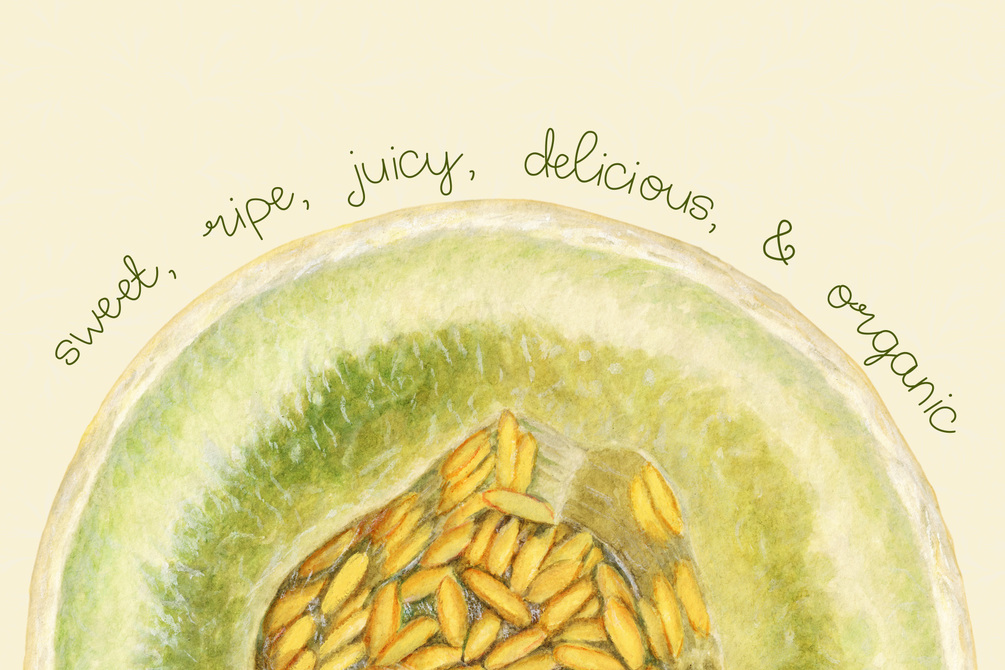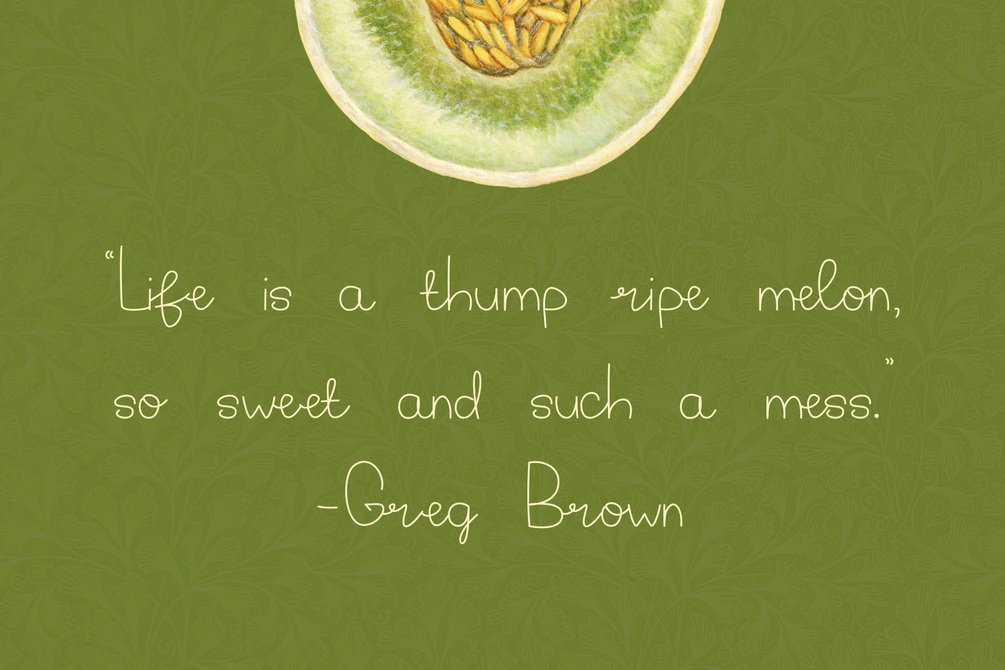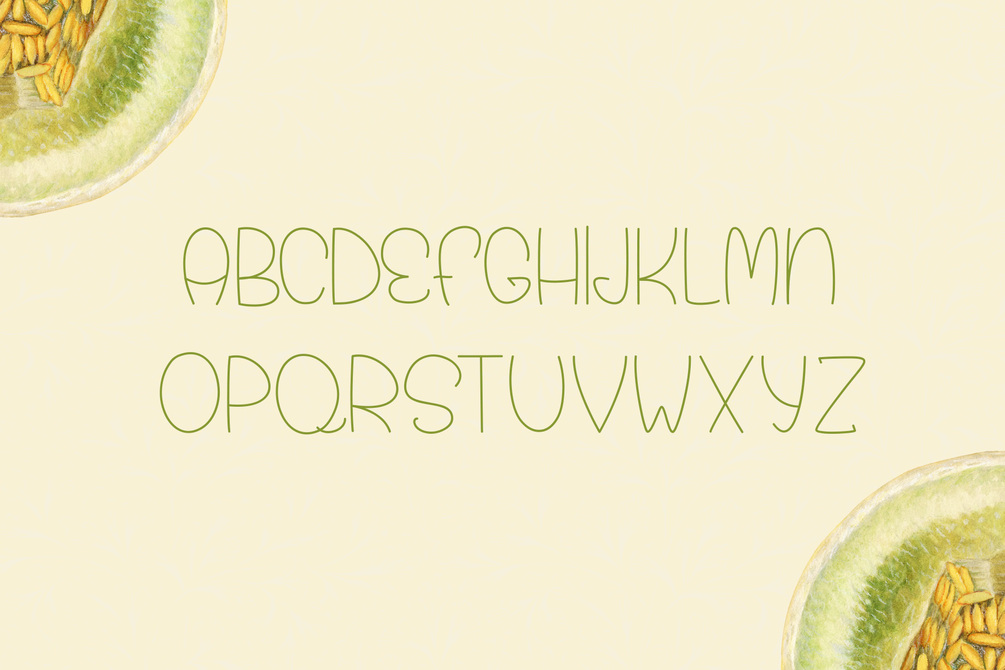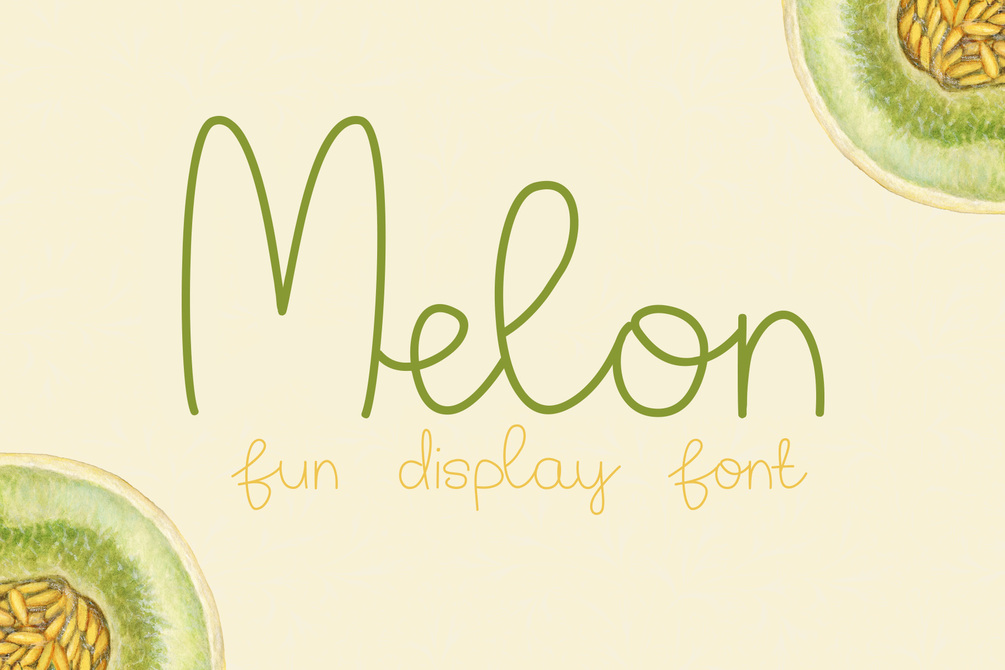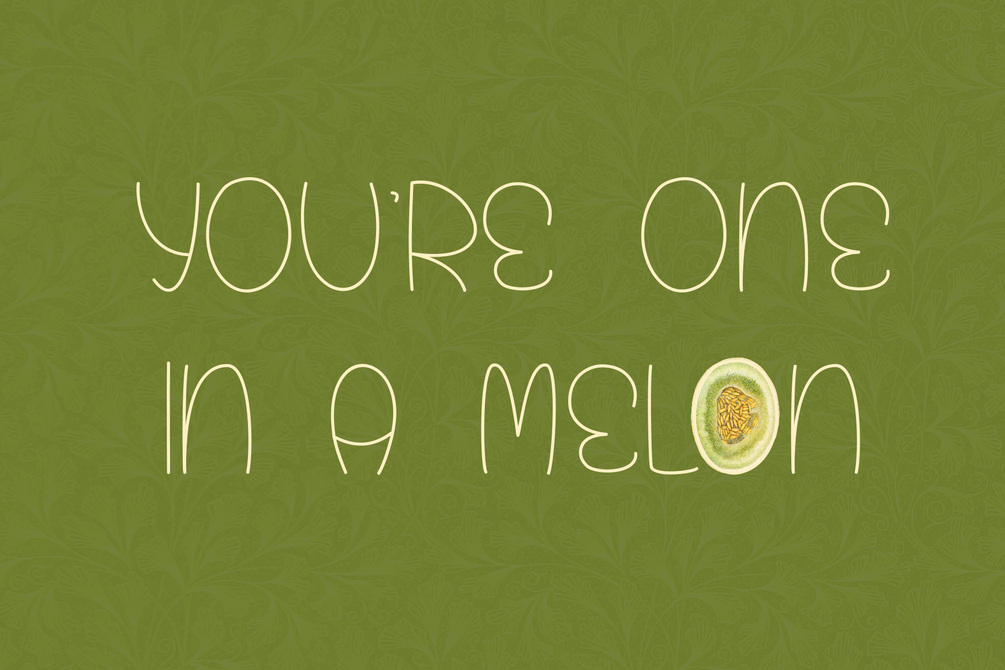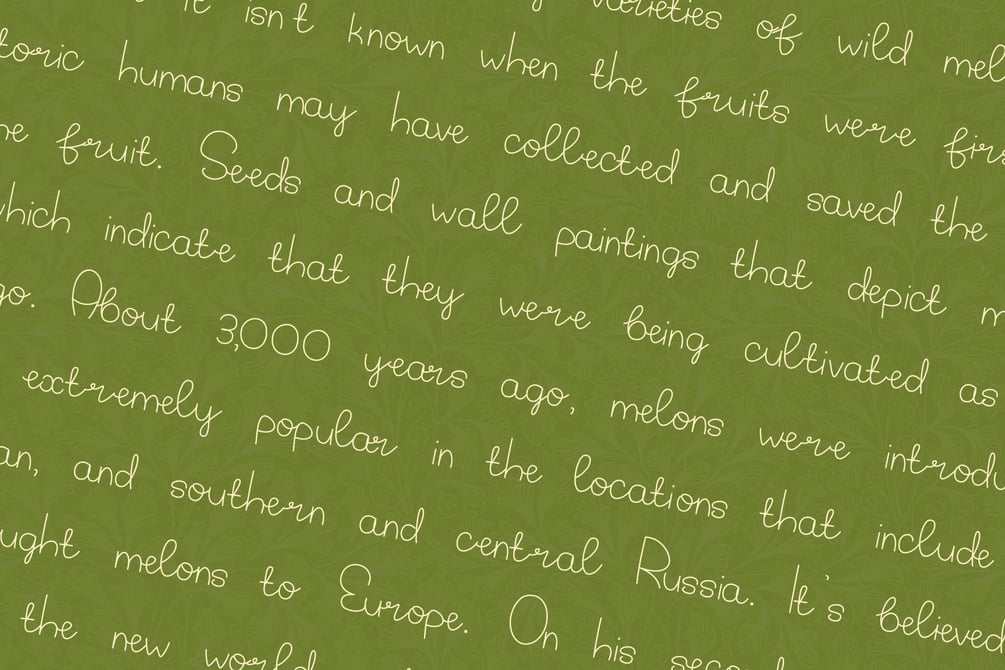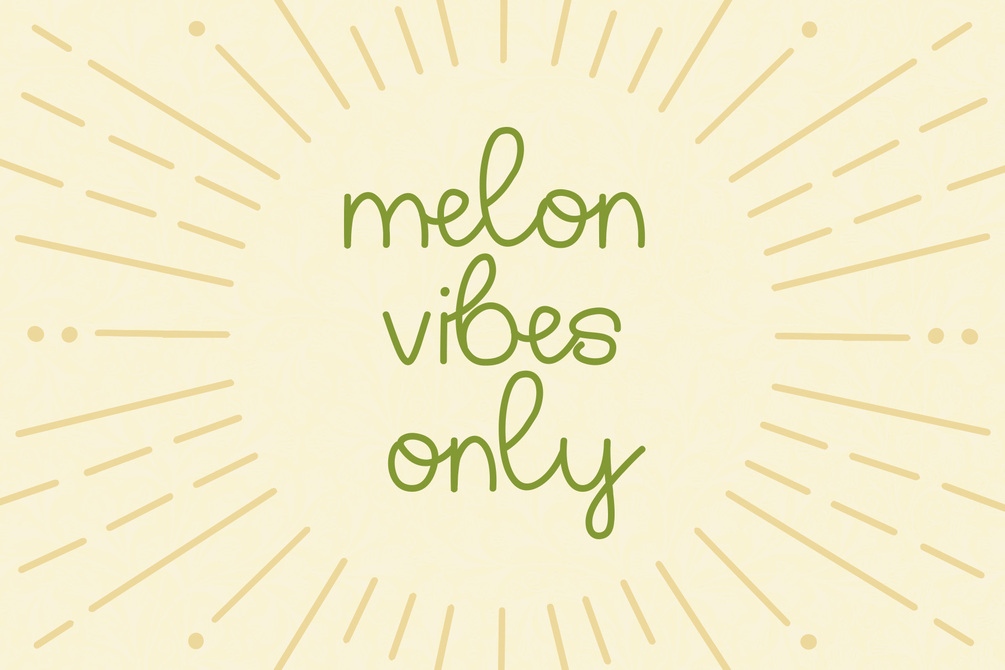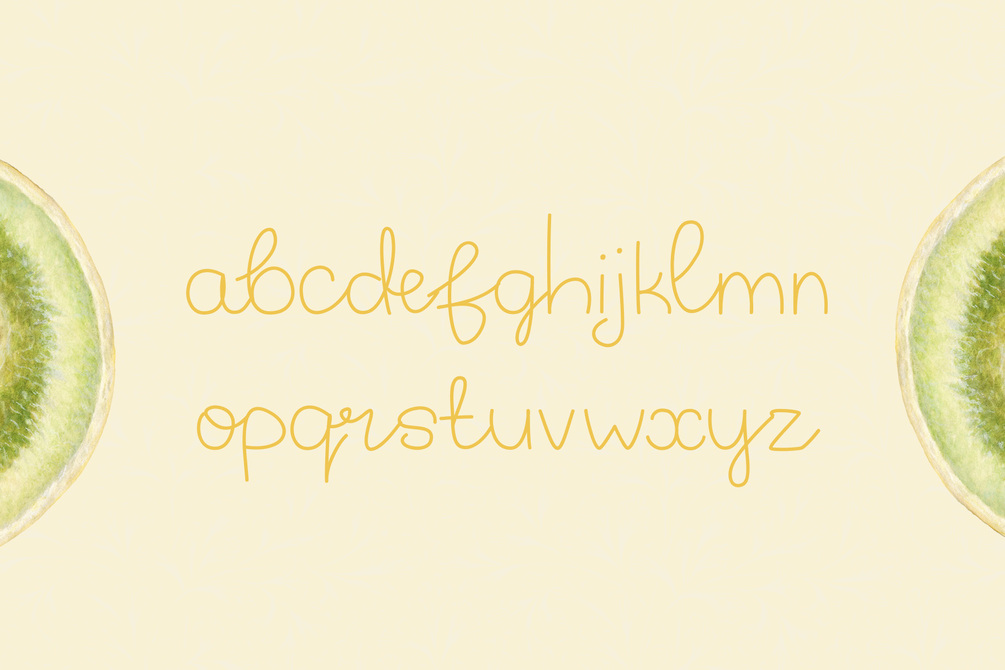
Melon - Fun Display Font
Melon is a fun and quirky display font. The light hearted vibe of this typeface is perfect t-shirt designs, phone cases, kids books, greeting cards, invitations, mugs and so much more.
If your project requires a fun/happiness look, then this font is for you. Get creative!